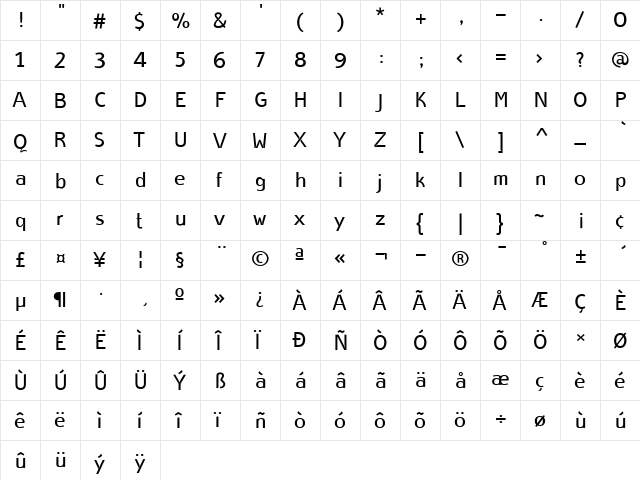
Plastizid97 Regular
Design Context for Plastizid97 Typeface
Plastizid97 takes a measured approach to typography — its balanced proportions and neutral character make it a reliable workhorse for both digital and print work.